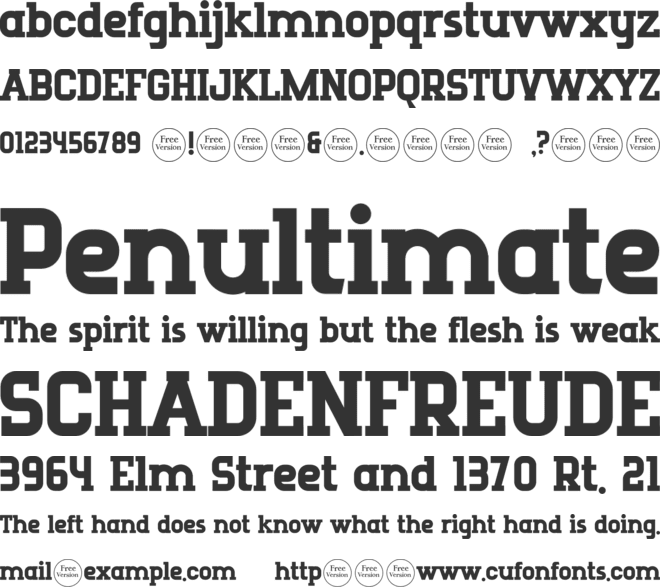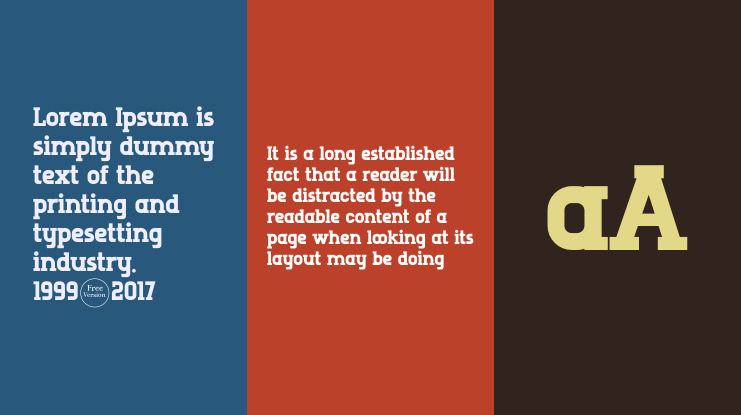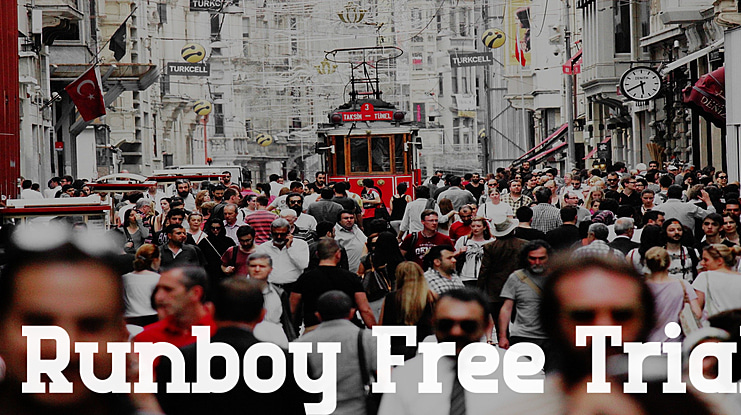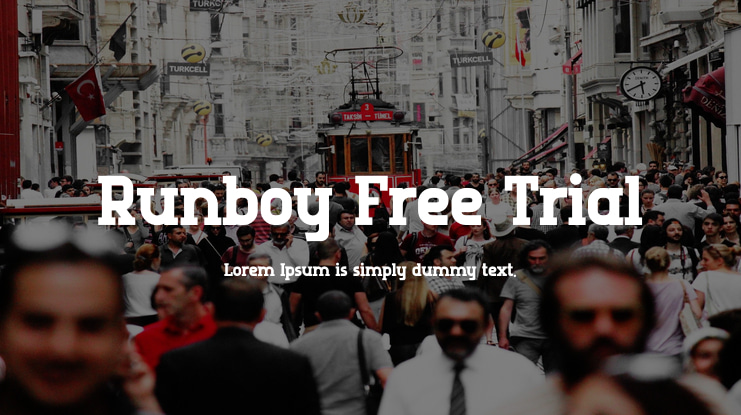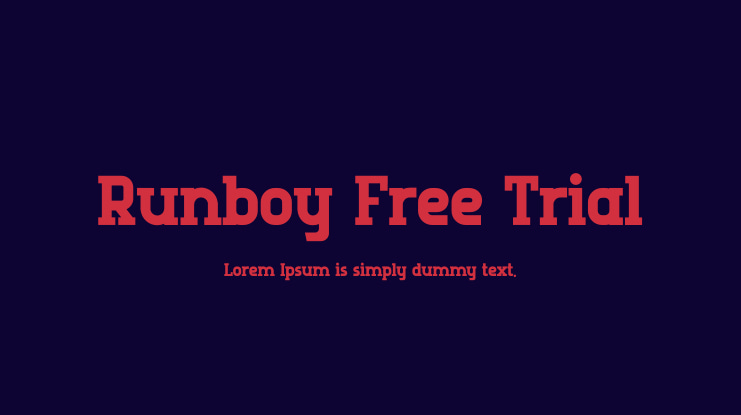
Runboy Free Trial Font
Runboy is a strong slab serif font. With its neat and beautiful arrangement of letters, this typeface will look outstanding in both formal and non-formal designs.Perfect for headlines or logos, jacket, Porter finds its inspiration in the style of mid-19th century typefaces using generous slab serifs and a hard-working appearance.